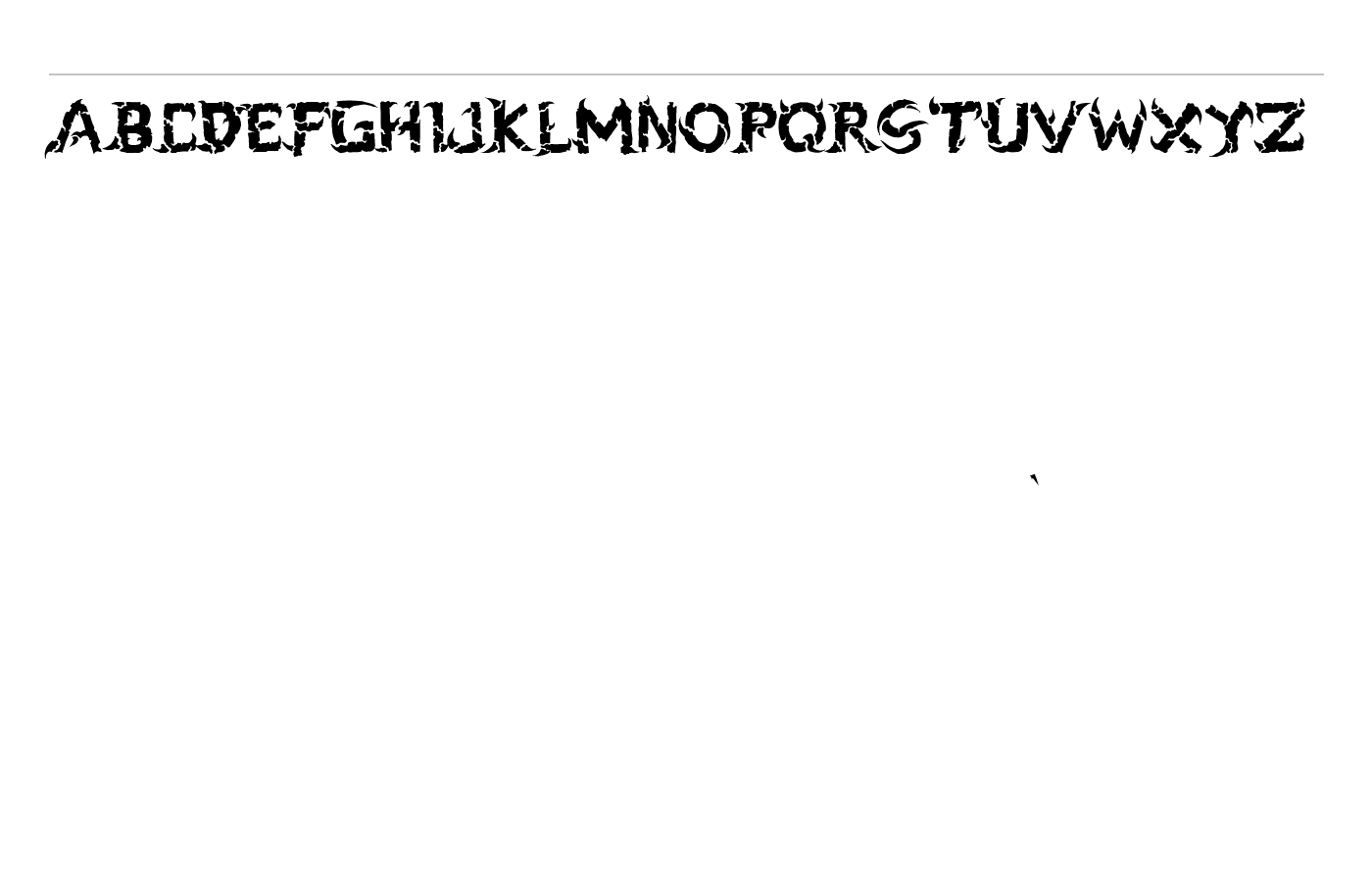
Black Dogma is a bold, distressed serif font that combines a rough, textured appearance with strong, blocky letterforms. Its uneven edges and heavy weight give it a gritty, rebellious feel, making it ideal for designs that need a dramatic, edgy or vintage touch. This font works well for posters, logos, and branding that want to convey raw energy and bold personality.
black dogma Font
About black dogma Font
| Font family | black dogma Font |
| Designer | Abduh |